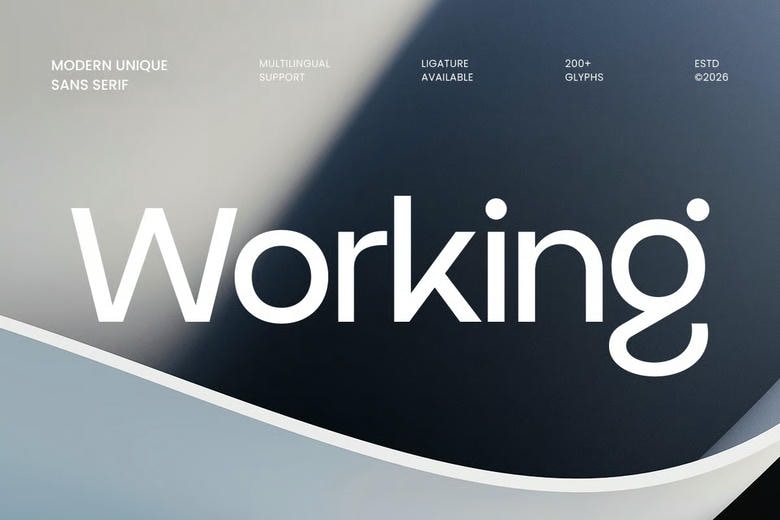
Working Sans Font
Working Minimalist Sans Serif Font is a fresh and exclusive sans serif font developed to provide clarity, confidence and a modern touch of uniqueness and exclusivity. This typeface has a professional sound, which is also modern, trustworthy, and immediately brand-ready with minimal shapes, proportionality, and a clear rhythm.
A brand-oriented typography, Working can work effectively with logos, wordmarks, identity systems, web page header, user interface, presentations, posters, signage, packaging, and social media graphics. Its contemporary san framework ensures all the text remains legible and similar and is suited to bold headlines, as well as commonplace brand messaging in digital and print designs.
Working Sans Serif Font